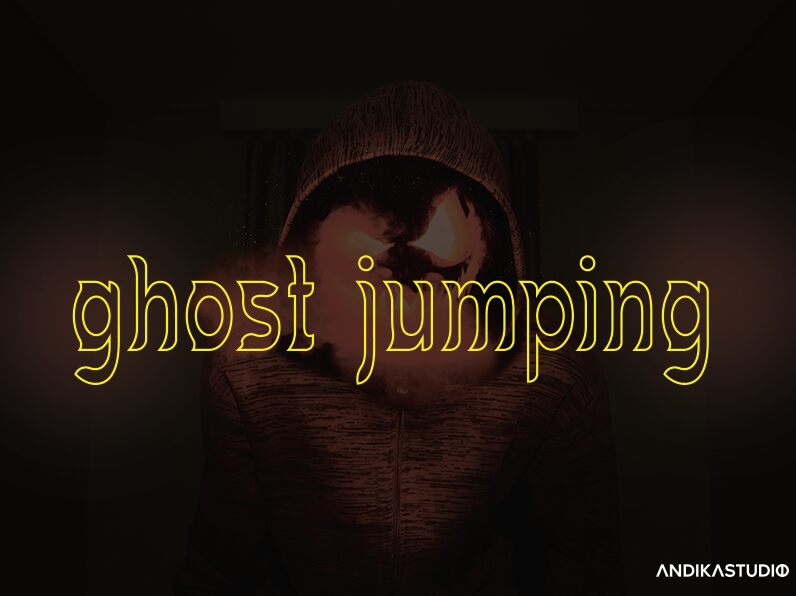
Ghost Jumping
Ghost Jumping is a stunning display font designed by Lontong Lodeh. Its unique outlined style and semi-light weight make it perfect for bold headlines, eye-catching posters, and impressive branding projects. The condensed width adds an extra touch of elegance and sophistication to any design. Whether you're working on a trendy fashion campaign or a modern tech startup, Ghost Jumping will bring your project to life with its dynamic and creative appeal. Let this font be the highlight of your next project and watch it jump off the screen!